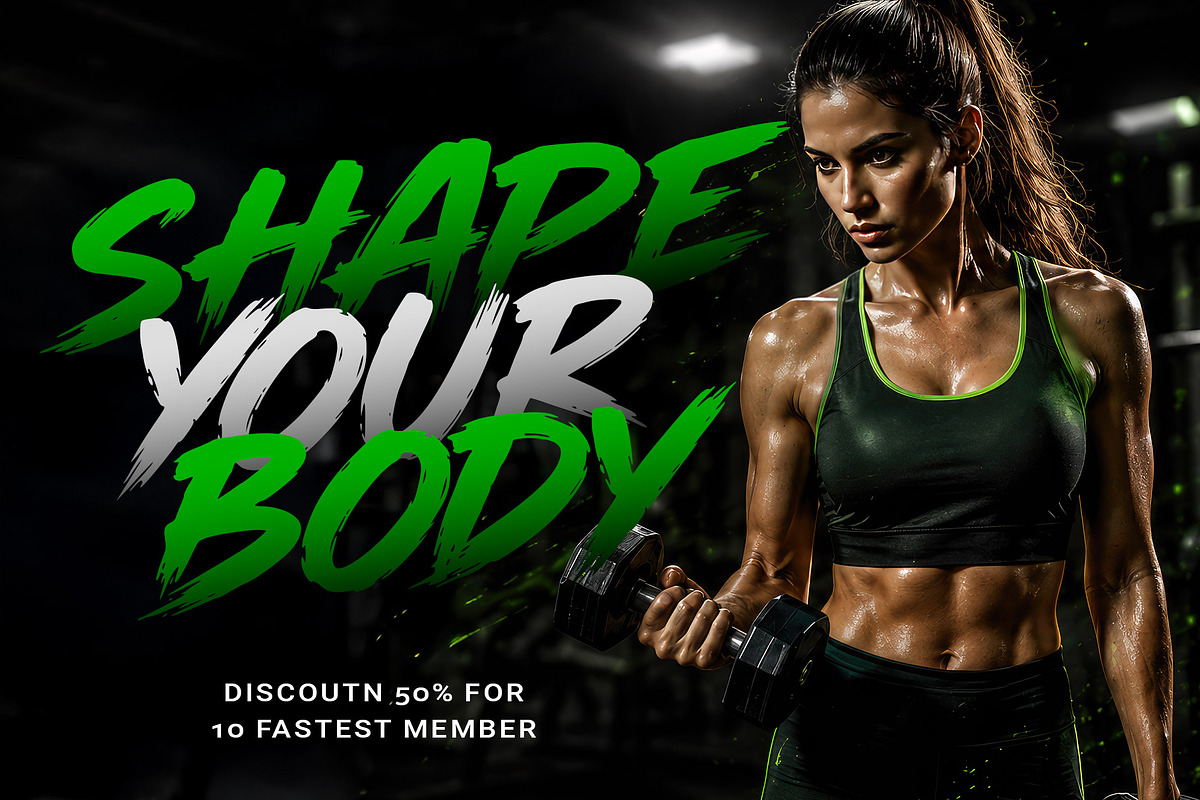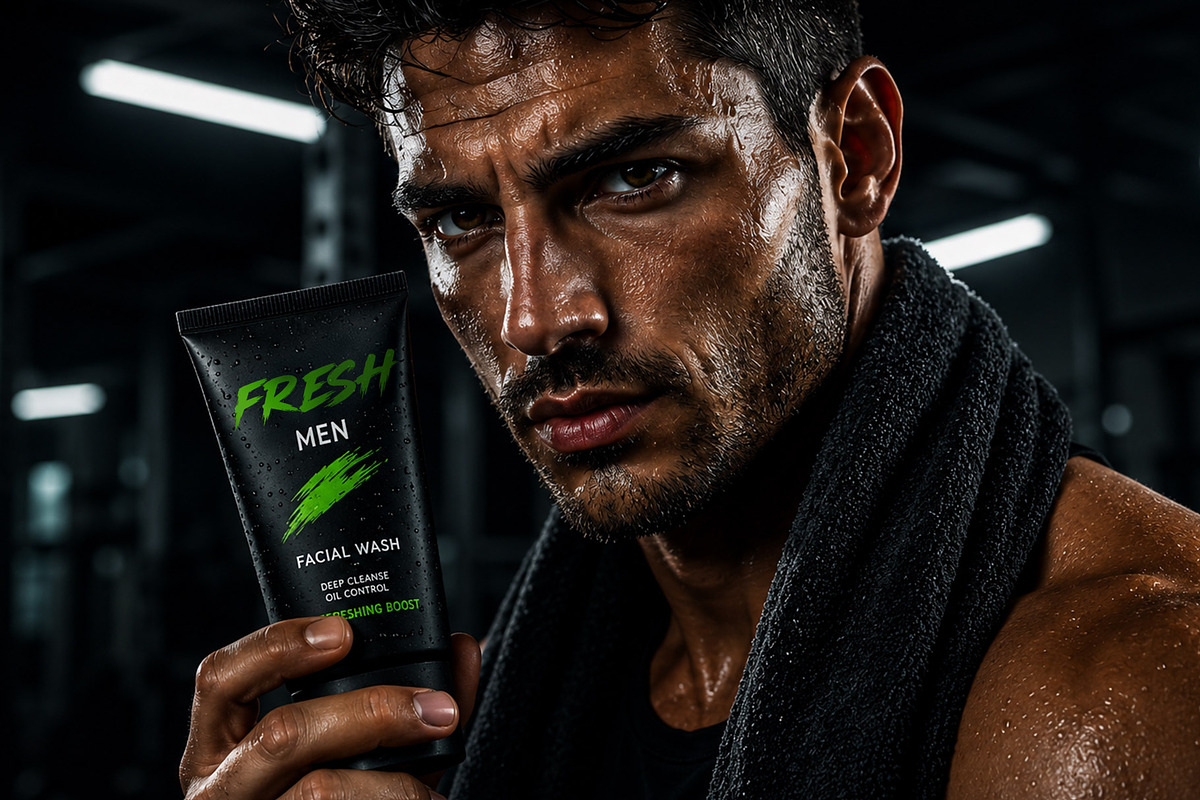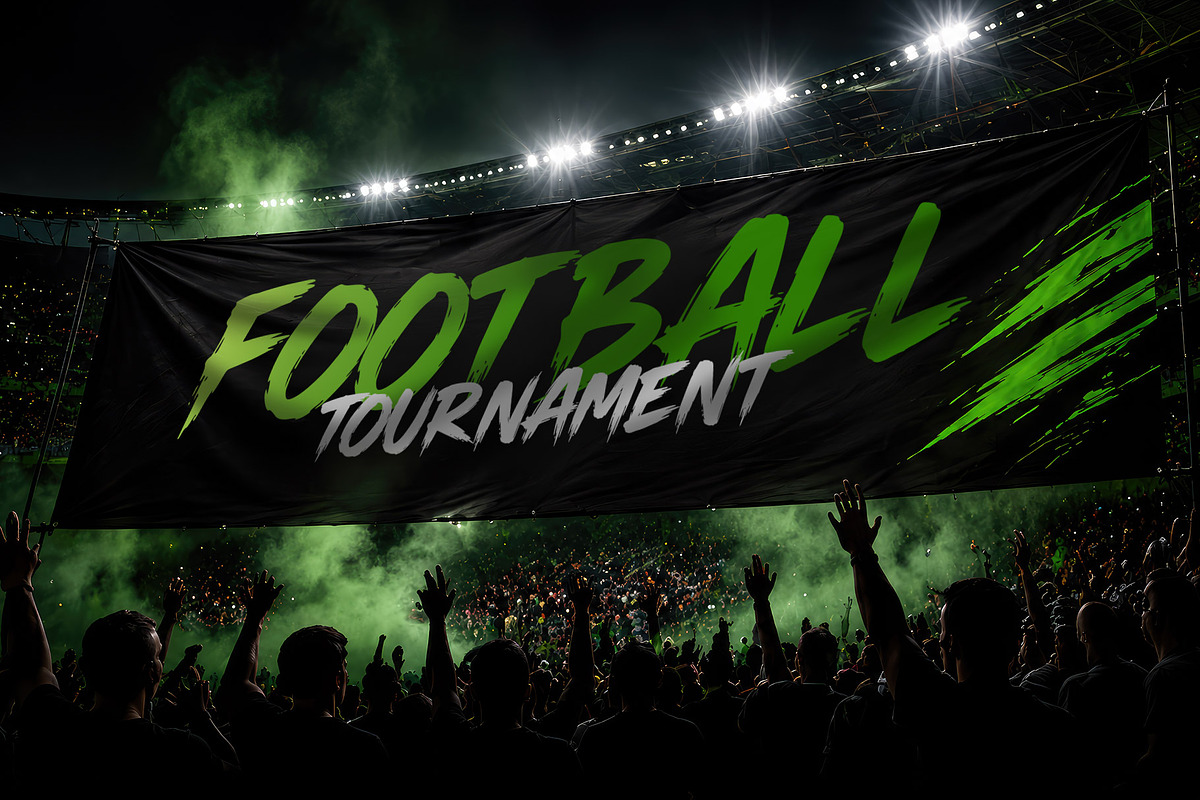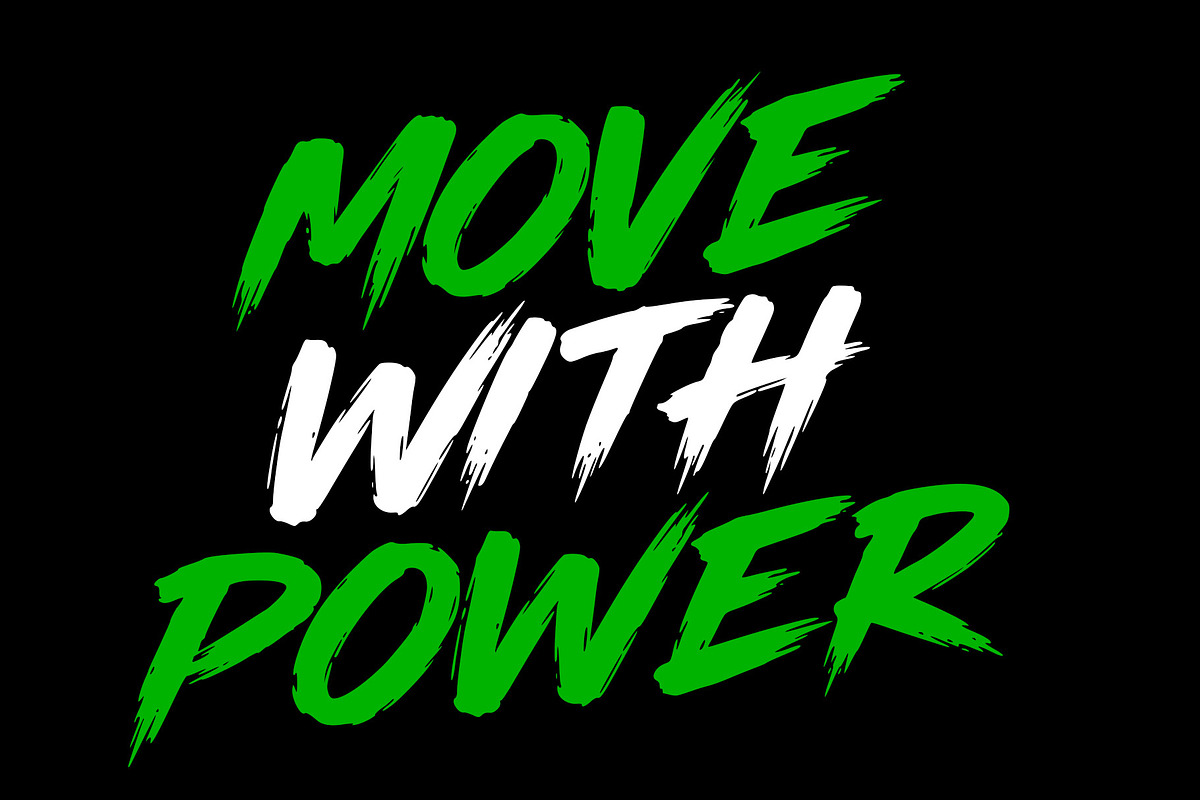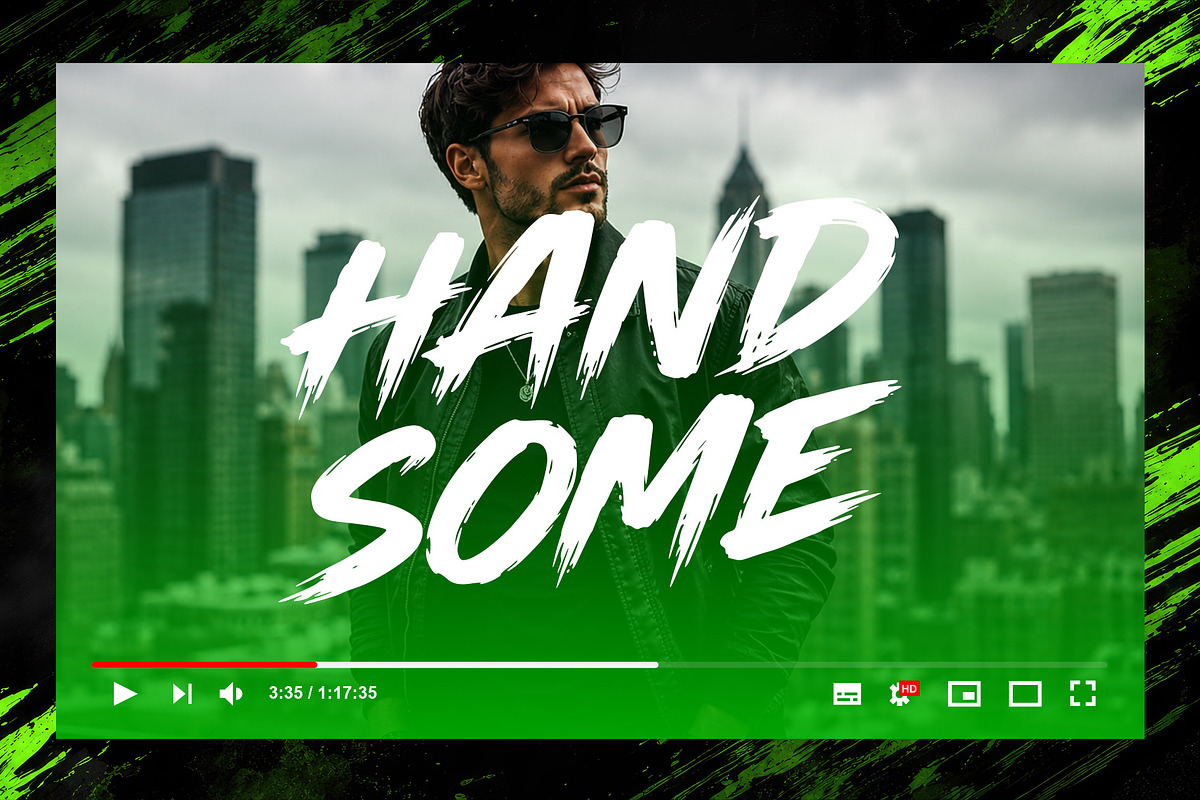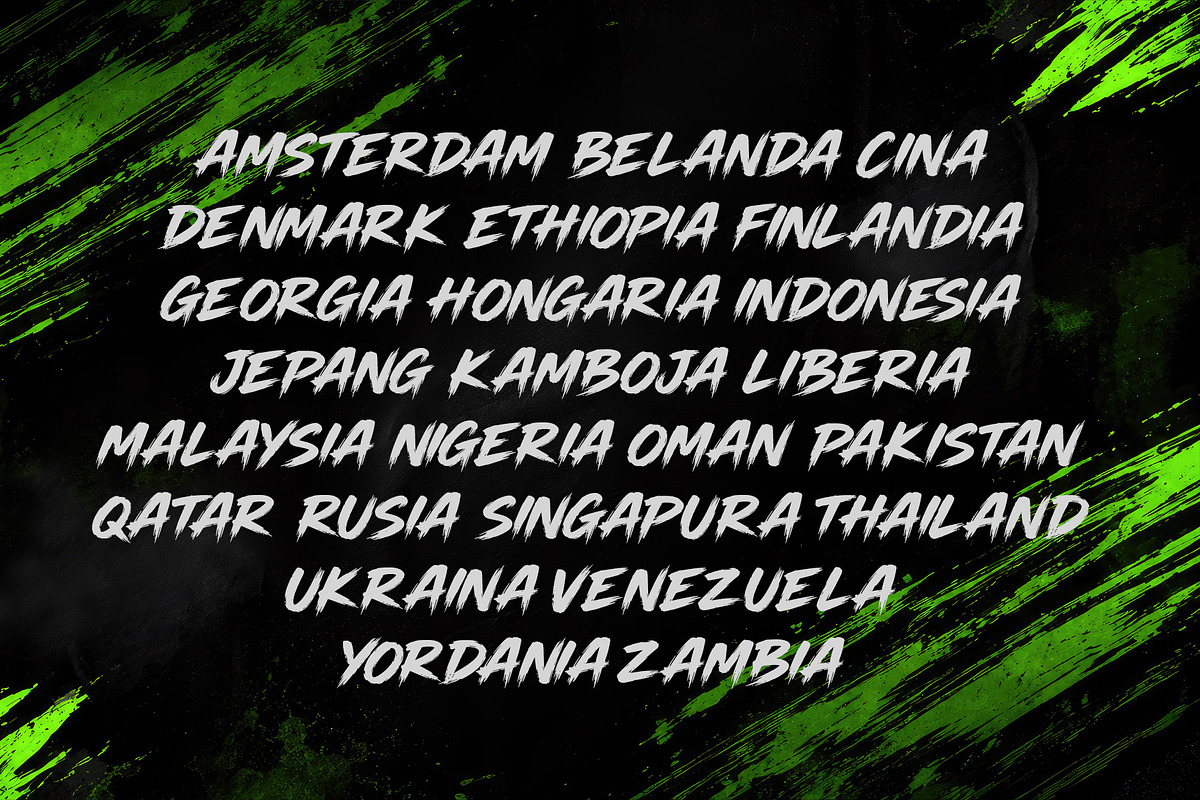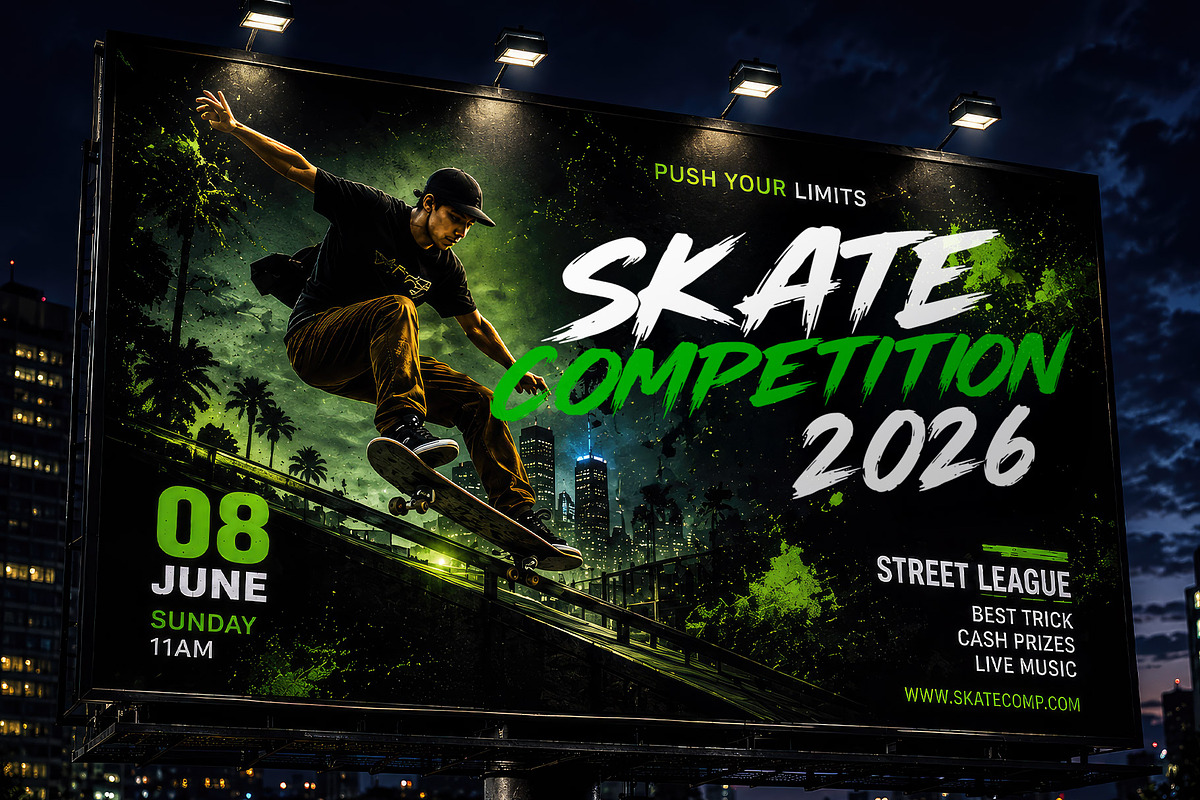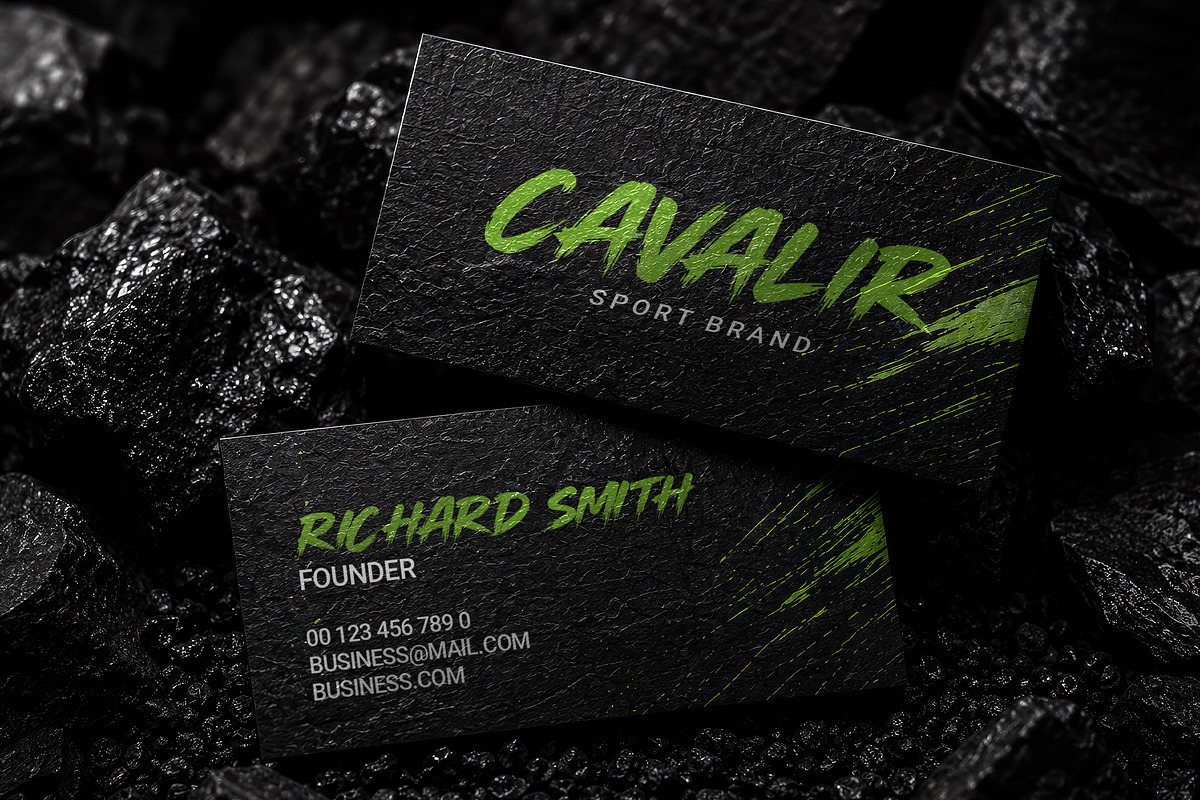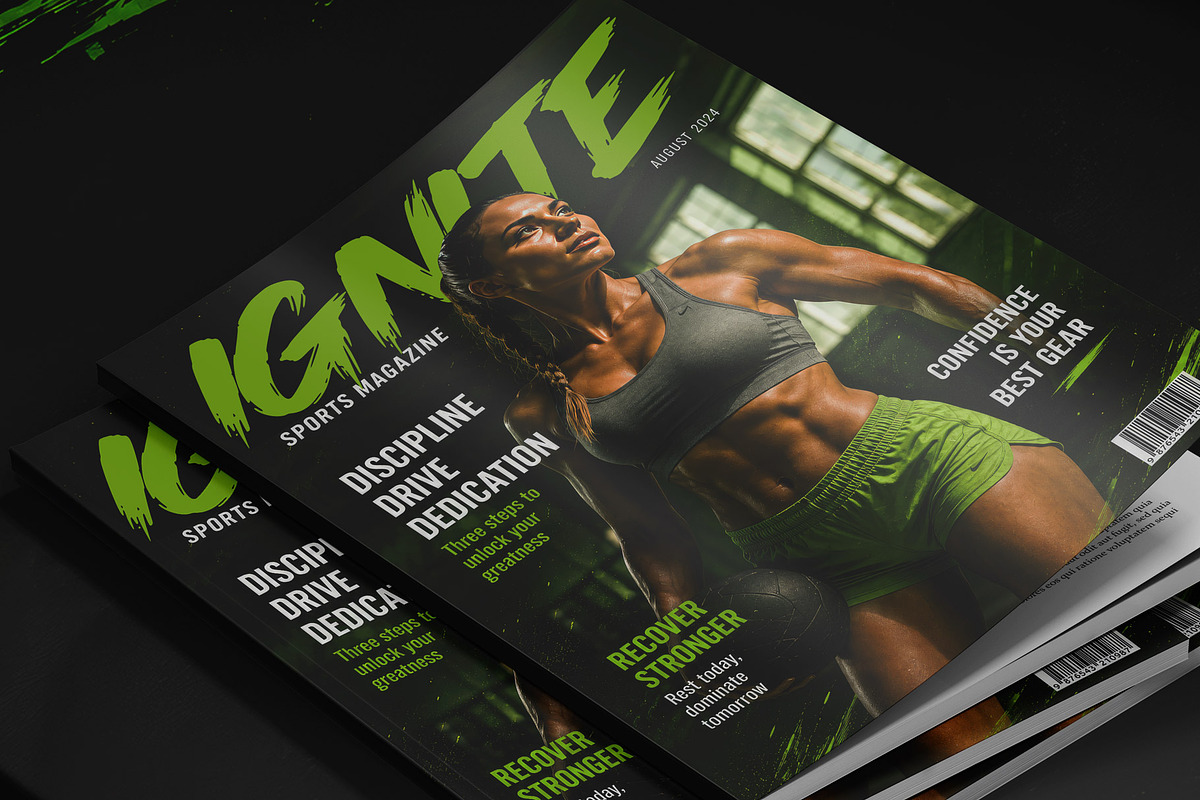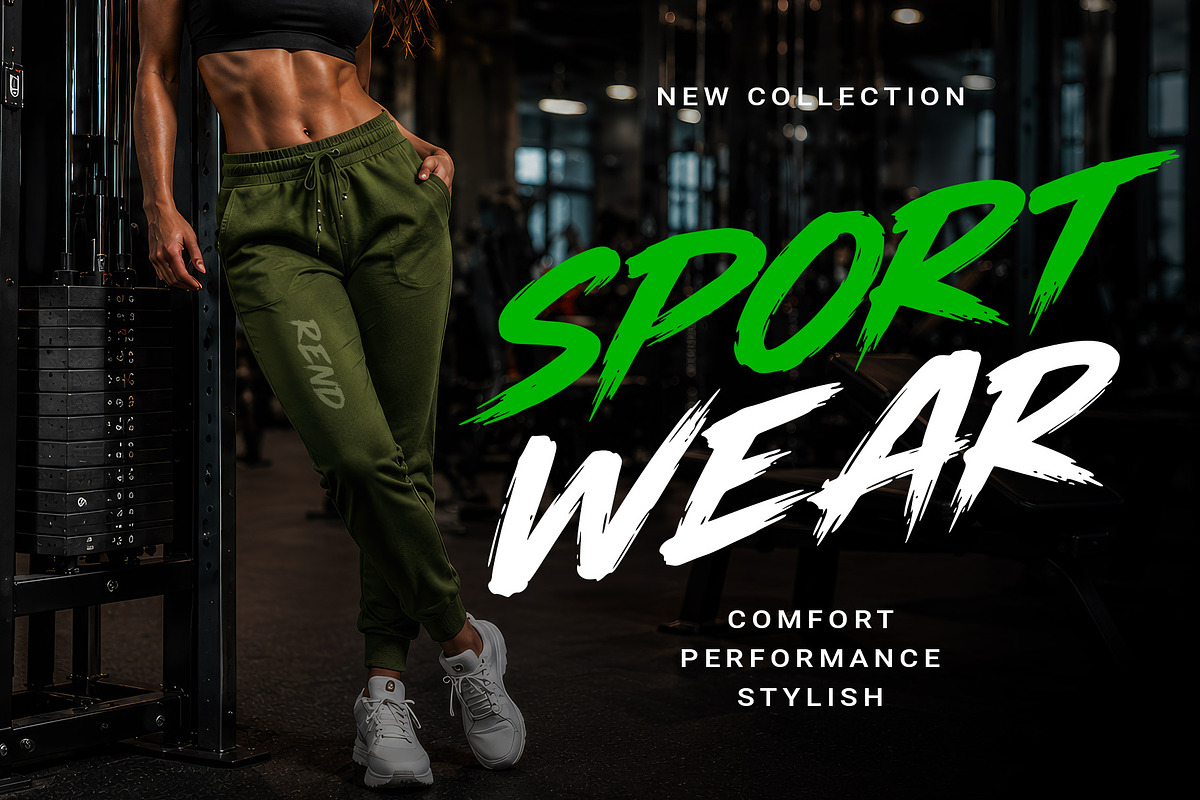
Komper Urban Street Font
Komper is brush font explodes with bold energy, confidence, and modern street-inspired attitude. Featuring thick hand-painted strokes and sharp brush endings, the lettering creates an intense visual impact that immediately captures attention. Komper is a perfectly choice for any creative endeavor, creating, modern, lifestyle design such as logotype, title, cover, branding, display and magazine, social media posts, advertisements, printed quotes, product packaging, corporate brand, product designs, labels, photography, watermarks, special events and any other project with urban touch.